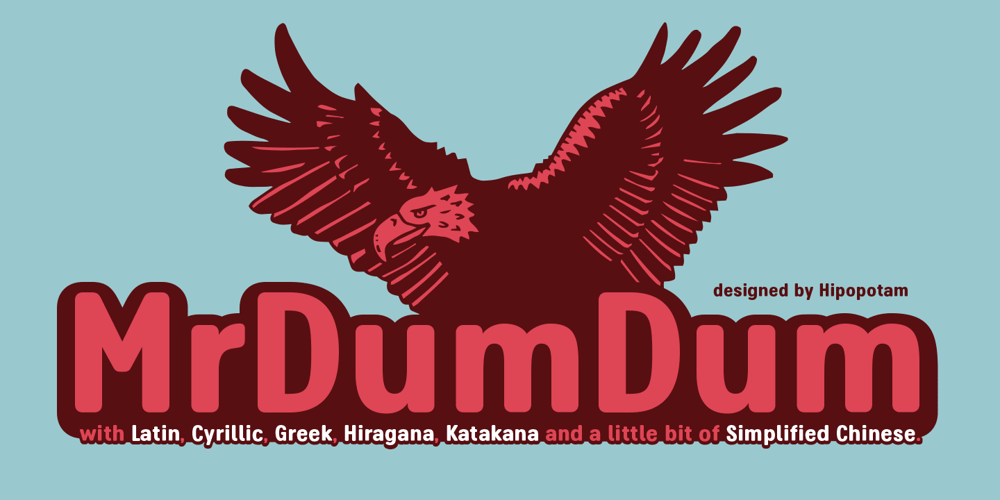
Mr Dum Dum Font Family was designed by Aleksandra and Daniel Mizielińscy and published by Hipopotam Studio. Mr Dum Dum contains 2 styles and family package options. Mr Dum Dum was designed for our game – Ba Ba Dum. In Ba Ba Dum players can learn words in different languages, so we needed a typeface that can support not only all latin characters but also Cyrillic, Greek and two Japanese syllabaries – Hiragana and Katakana. Eventually we wanted to add Chinese support so we designed 1314 Simplified Chinese characters – just enough to cover all words available in Ba Ba Dum plus necessary logograms to translate the games UI.